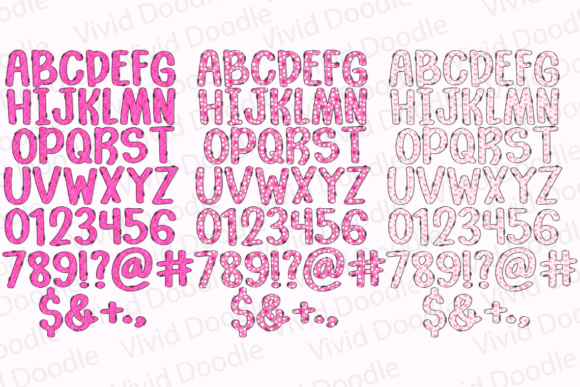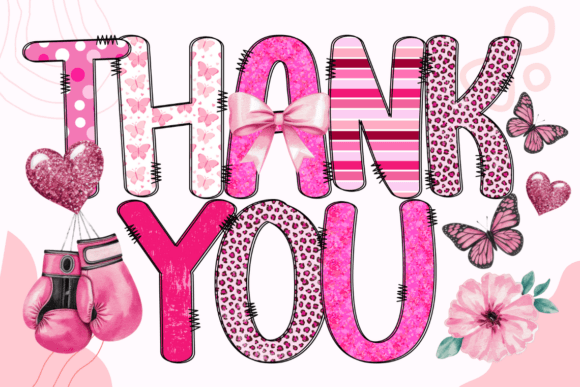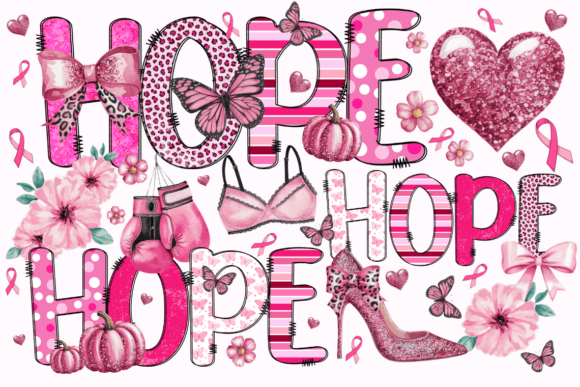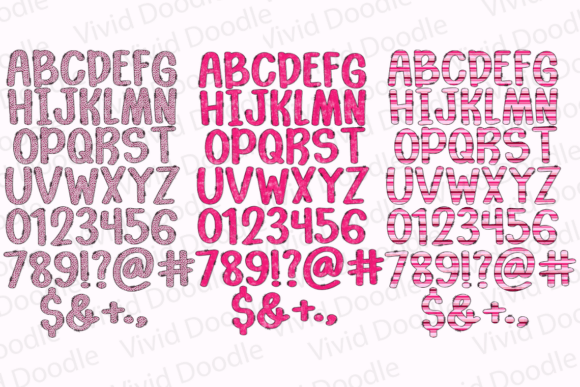
Breast Cancer Doodle Font: A Creative Way to Show Support and Spread Awareness
Breast cancer awareness is an important cause that affects millions of people worldwide. One way to show support and spread awareness is through creative and meaningful designs. Introducing the Breast Cancer Doodle Font, a unique and inspiring font that features delicate doodles and ribbon motifs, perfect for creating awareness posters, fundraising materials, and adding a special touch to events centered around breast cancer awareness.
A Font that Speaks to Hope and Solidarity
This beautiful font is designed to help spread a message of hope, strength, and solidarity. Its delicate doodles and ribbon motifs evoke a sense of care and compassion, making it perfect for school projects, community events, or personal creative works. With the Breast Cancer Doodle Font, designers and crafters can create inspiring and uplifting designs that show support for the cause in a meaningful and artistic way.
The Breast Cancer Doodle Font offers endless design possibilities for those who want to show their support for breast cancer awareness. Here are a few ideas to get you started:
- Create awareness posters and flyers that grab attention and inspire action
- Design fundraising materials, such as t-shirts, tote bags, and water bottles, that help raise money for a great cause
- Add a special touch to events centered around breast cancer awareness, such as walks, runs, and charity auctions
- Create social media graphics and posts that spread a message of hope and solidarity
- Make personalized gifts, such as cards, invitations, and gift tags, that show you care
Why Choose the Breast Cancer Doodle Font?
So why choose the Breast Cancer Doodle Font? Here are just a few reasons:
- Unique and inspiring design that features delicate doodles and ribbon motifs
- Perfect for creating awareness posters, fundraising materials, and adding a special touch to events
- Easy to use and customize, even for those with limited design experience
- A meaningful way to show support for breast cancer awareness and spread a message of hope and solidarity
Get Creative and Make a Difference